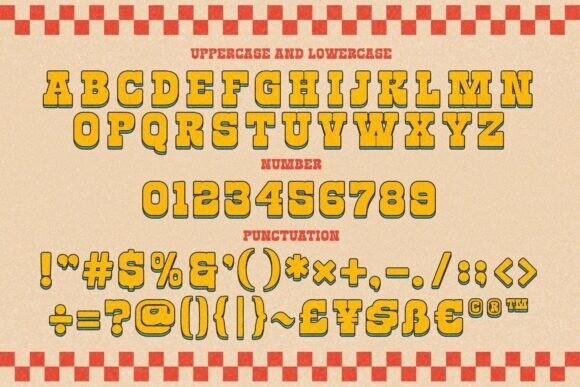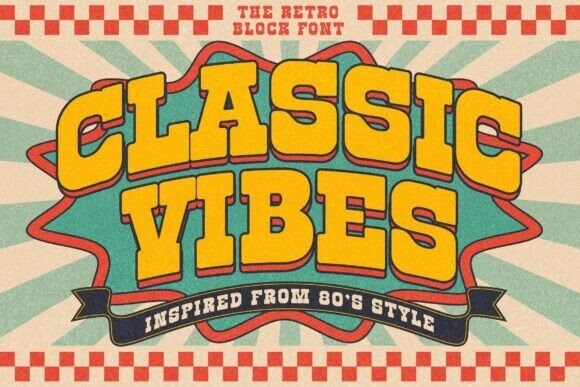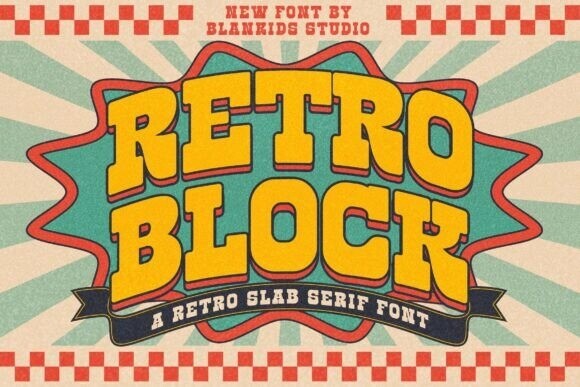
Retro Block Font
Designer: Blankids Studio
Retro Block Font is a retro slab font that is made for any professional project branding, such as logotype, watermarks, poster, branding, promotions, product packaging, etc. Every letter has a playful retro style design.